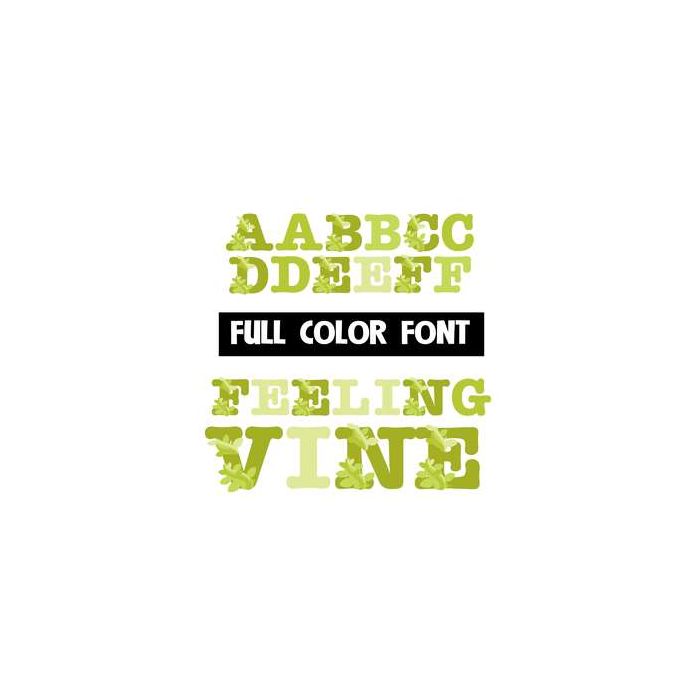
This full-color font features vines growing up the uppercase and a lowercase without vines. This font works best for titles, displays, posters and more. Please note color fonts will show as black in non compatible programs. This font type is compatible with Silhouette Studio.